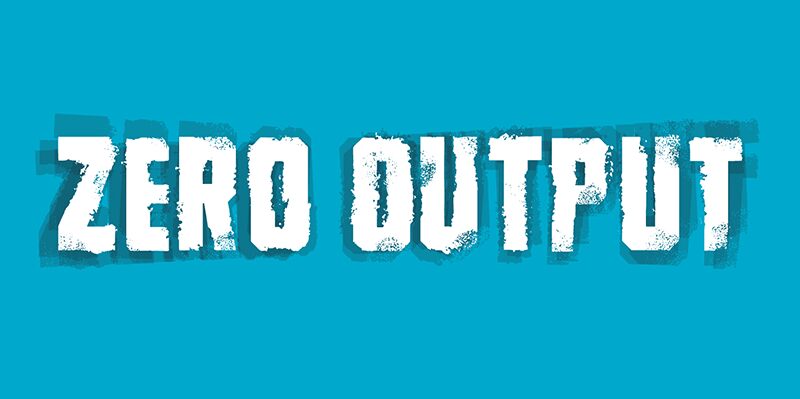
Zero Output DEMO Normal
Zero Output font from Pizzadude presents an eroded look with a condensed width and bold weight. Each character shows scratches and irregular lines, which adds a rugged and edgy mood to the typography. The characters vary in styles but they all follow the same pattern, with imperfections being one of this display font’s main characteristics.
The free grunge font is designed for use in headlines, posters, book covers, social media posts, branding materials, product packaging, magazine and newsletter titles as well as other print projects. A number of digital design projects could also benefit from its vintage-like style infused with urban aesthetics.